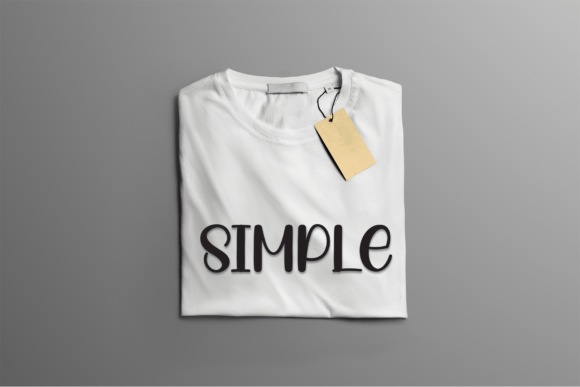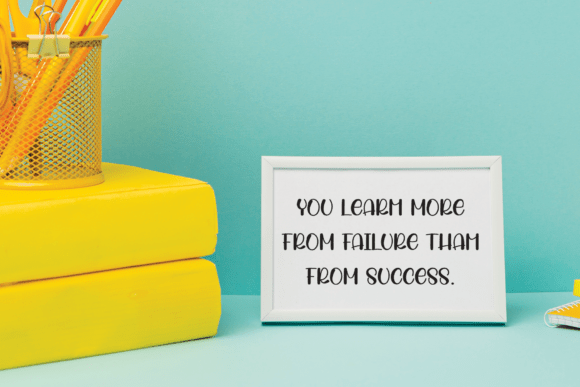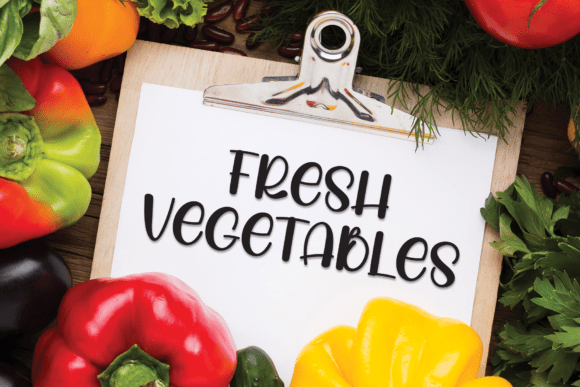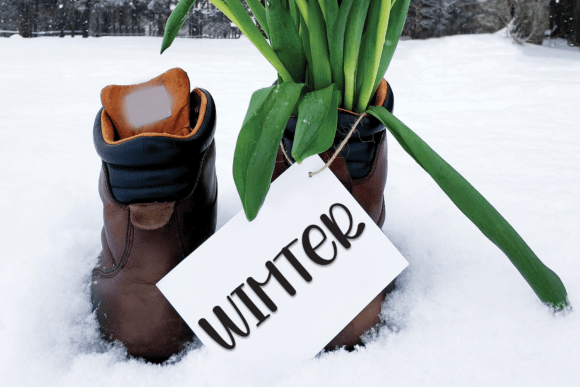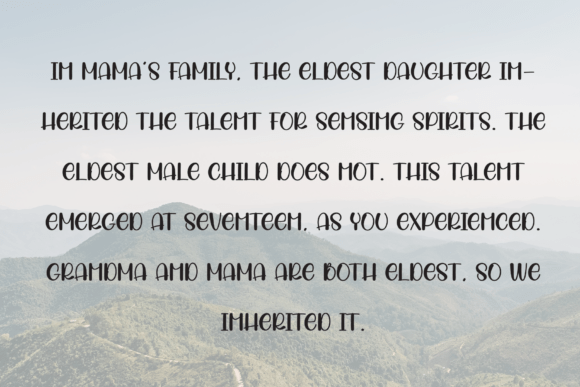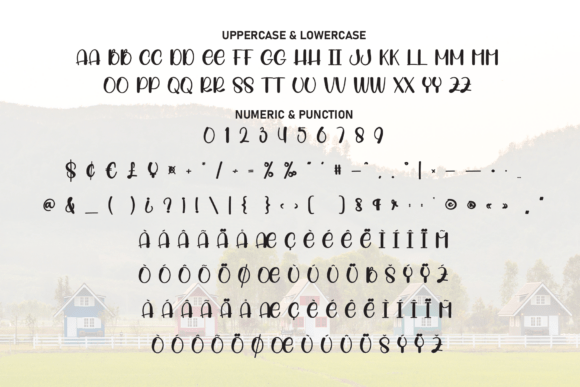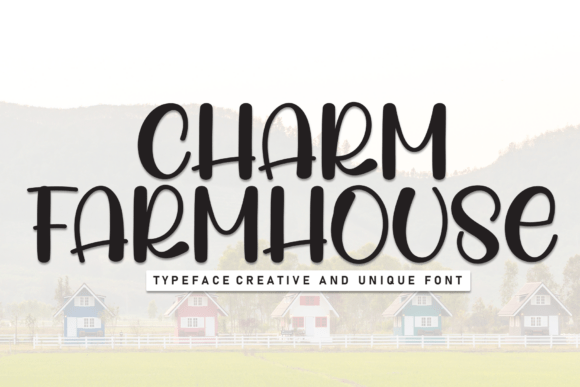
Introducing Charm Farmhouse Font: The Perfect Blend of Whimsy and Warmth
Are you looking for a typeface that embodies the cozy, welcoming feel of rustic design? Look no further than Charm Farmhouse Font, a wholesome and friendly font that is sure to capture the hearts of designers and crafters alike. With its unique blend of slightly thick, rounded strokes and a mix of all-caps lettering with a playful, handwritten touch, Charm Farmhouse Font is the perfect addition to any project seeking a warm, inviting, and handcrafted farmhouse style.
The Characteristics of Charm Farmhouse Font
So, what makes Charm Farmhouse Font so special? For starters, its slightly thick, rounded strokes give it a soft and approachable feel that is reminiscent of handmade signs and rustic decor. The font’s all-caps lettering provides excellent readability, making it perfect for headlines, titles, and signage. But what really sets Charm Farmhouse Font apart is its playful, handwritten touch. The font’s unique flair is achieved through a mix of subtle imperfections and variations in letterform, giving it a charming, one-of-a-kind feel that is sure to add a personal touch to any project.
Perfect for Rustic Design and Crafting Projects
Charm Farmhouse Font is specifically designed with rustic design and crafting projects in mind. Whether you’re creating a sign for your home, a logo for your craft business, or a design for a handmade product, this font is sure to bring a touch of warmth and personality to your project. Its wholesome, down-to-earth feel makes it perfect for a wide range of applications, from home decor and crafting to apparel design and branding.
Excellent for a Variety of Applications
So, what can you use Charm Farmhouse Font for? The possibilities are endless! Here are just a few ideas to get you started:
• Home decor signs: Add a touch of rustic charm to your home with custom signs featuring Charm Farmhouse Font.
• Crafting projects: Use Charm Farmhouse Font to add a personal touch to your crafting projects, from knitting patterns to handmade cards.
• Rustic branding: Give your business a down-to-earth feel with Charm Farmhouse Font, perfect for logos, packaging, and marketing materials.
• Apparel design: Create custom t-shirts, hats, and other apparel featuring Charm Farmhouse Font for a unique and eye-catching design.
Why Choose Charm Farmhouse Font?
So, why choose Charm Farmhouse Font over other typefaces? Here are just a few reasons:
• Unique and creative: Charm Farmhouse Font offers a fresh and creative take on traditional rustic design.
• Excellent readability: The font’s all-caps lettering and clear letterforms make it easy to read, even at small sizes.
• Versatile: Charm Farmhouse Font can be used for a wide range of applications, from home decor to apparel design.
• Handcrafted feel: The font’s subtle imperfections and variations give it a charming, handcrafted feel that is sure to add a personal touch to any project.
In conclusion, Charm Farmhouse Font is a unique and versatile typeface that is perfect for designers and crafters looking to add a touch of rustic charm to their projects. With its wholesome, friendly feel and creative blend of all-caps lettering and handwritten touches, Charm Farmhouse Font is sure to become a favorite in your design arsenal. So why wait? Download Charm Farmhouse Font today and start creating your own unique and eye-catching designs!